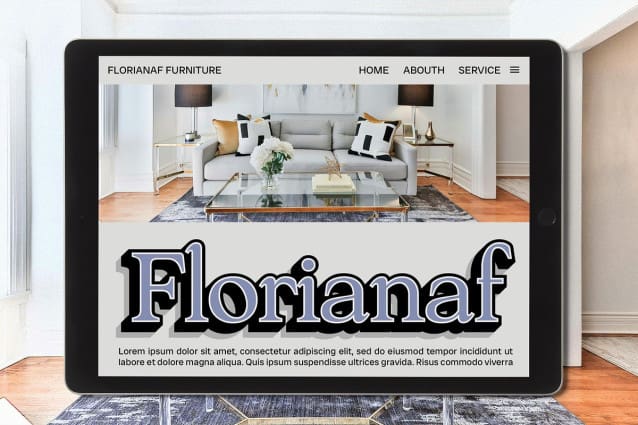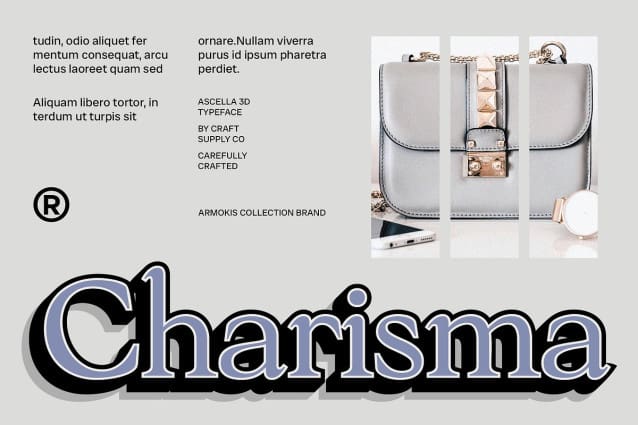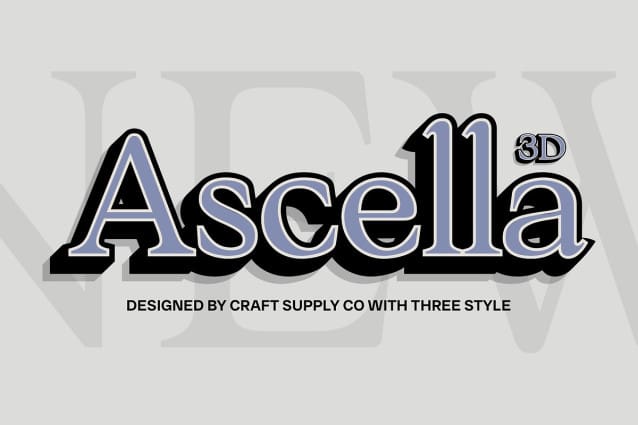
Ascella 3D Font
Ascella 3D seamlessly blends timeless serif elegance with a modern 3D effect. Its refined serifs and clean lines create a sophisticated design that embodies classic beauty, while the three-dimensional effect introduces a fresh, contemporary flair.
Striking 3D Depth for Enhanced Visual Impact The 3D effect in this font adds striking visual depth, elevating the font’s elegant design with a dynamic and engaging presence. This modern touch enhances readability and creates a memorable impact, making it ideal for upscale and high-end applications.
Perfect for Upscale Branding and Editorial Layouts Ascella 3D is an excellent choice for upscale branding, high-end editorial layouts, and any project that demands a blend of classic style and modern sophistication. Its versatile design ensures it stands out in various contexts, from luxury branding to refined print materials.
Dynamic and Engaging Presence With its sophisticated design and dynamic 3D effect, Ascella 3D offers both timeless elegance and contemporary appeal. Its engaging visual presence makes it a standout choice for designs that seek to merge classic charm with modern innovation.